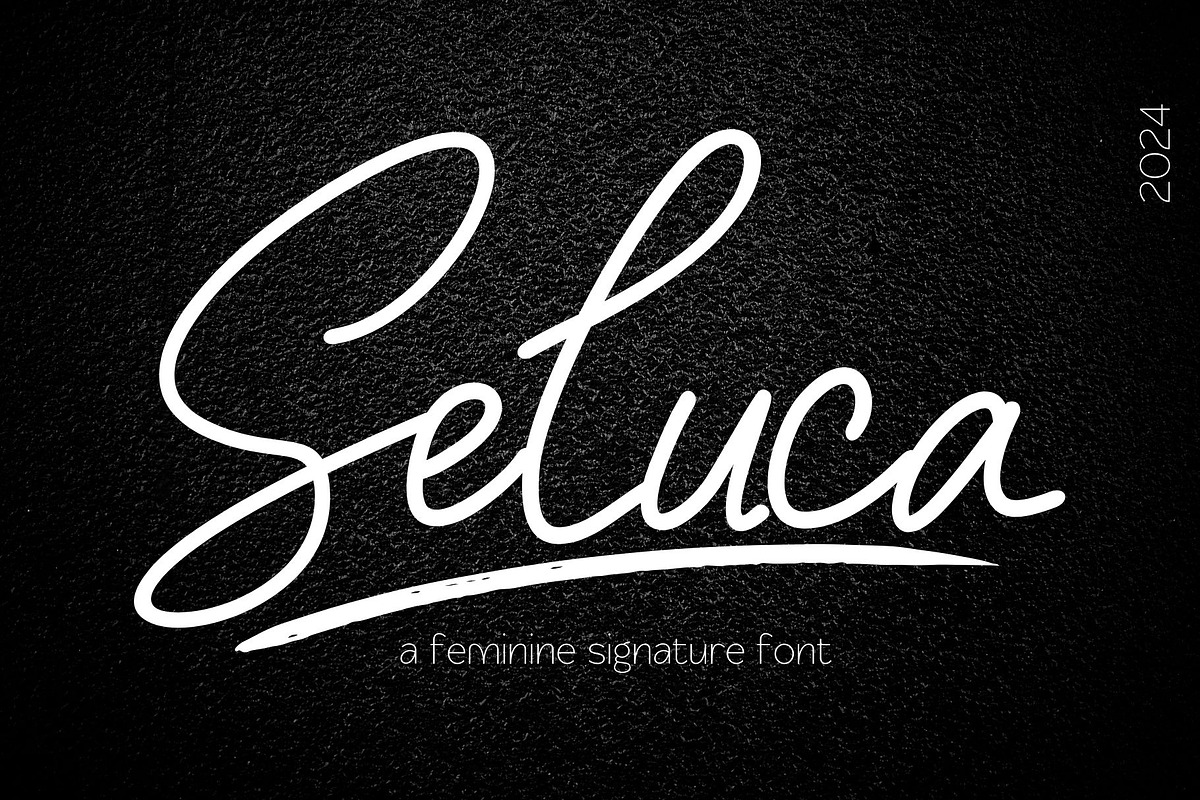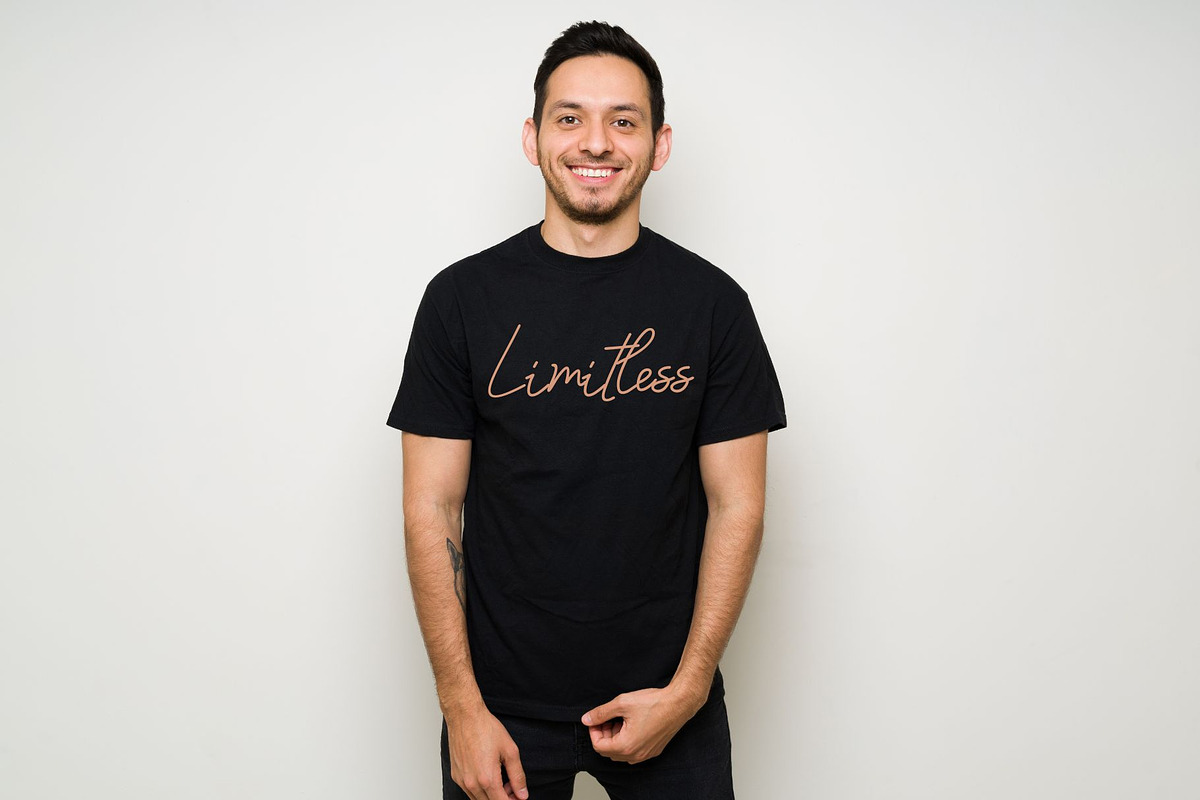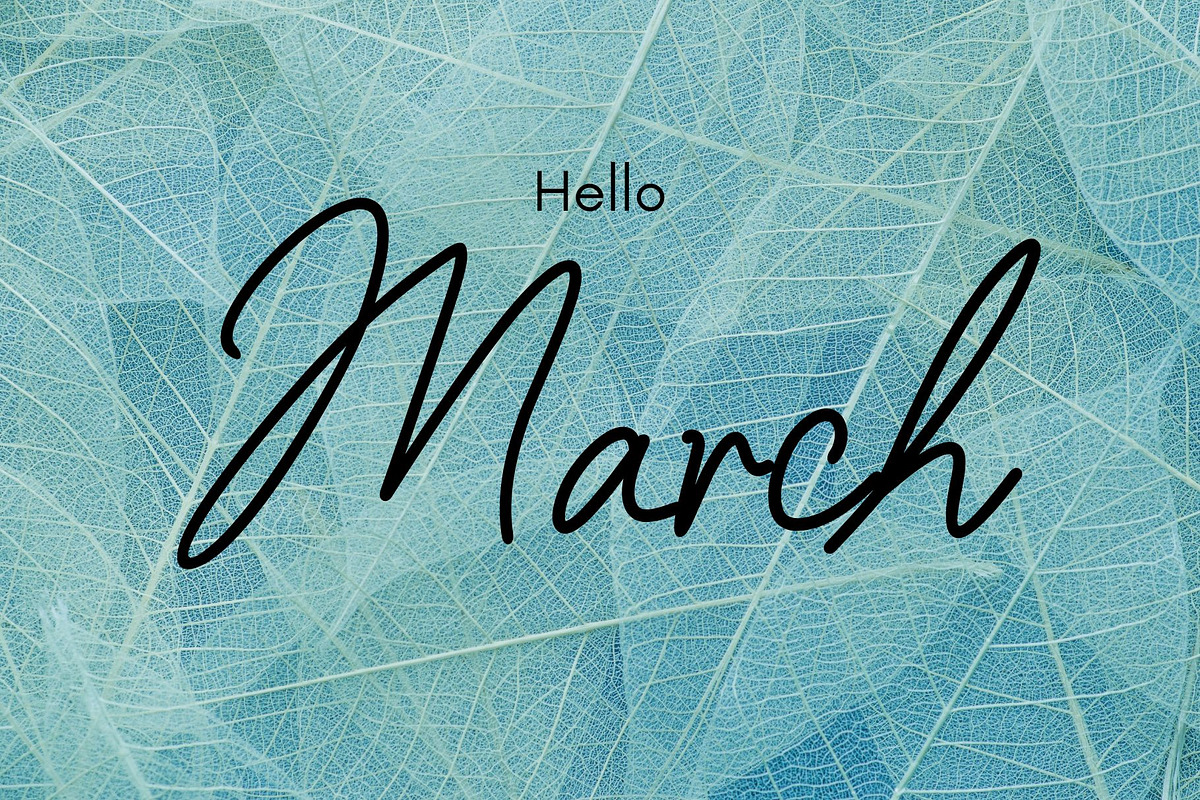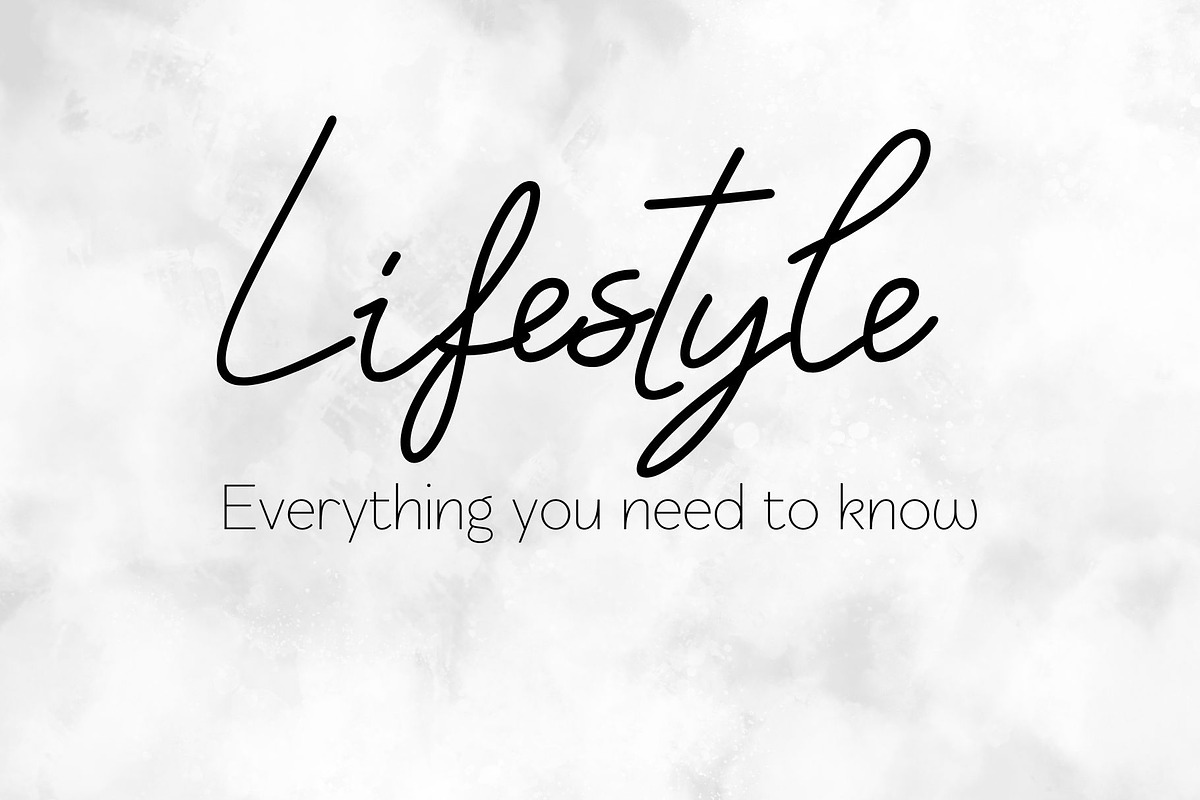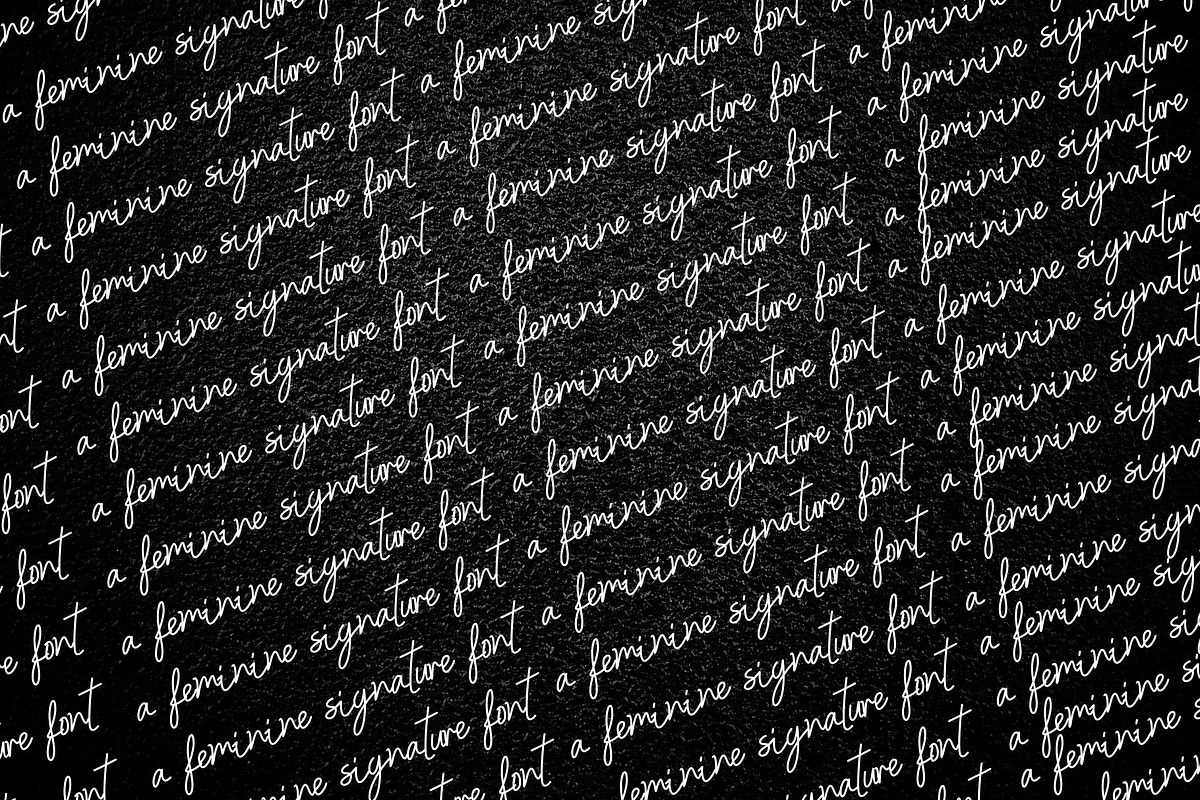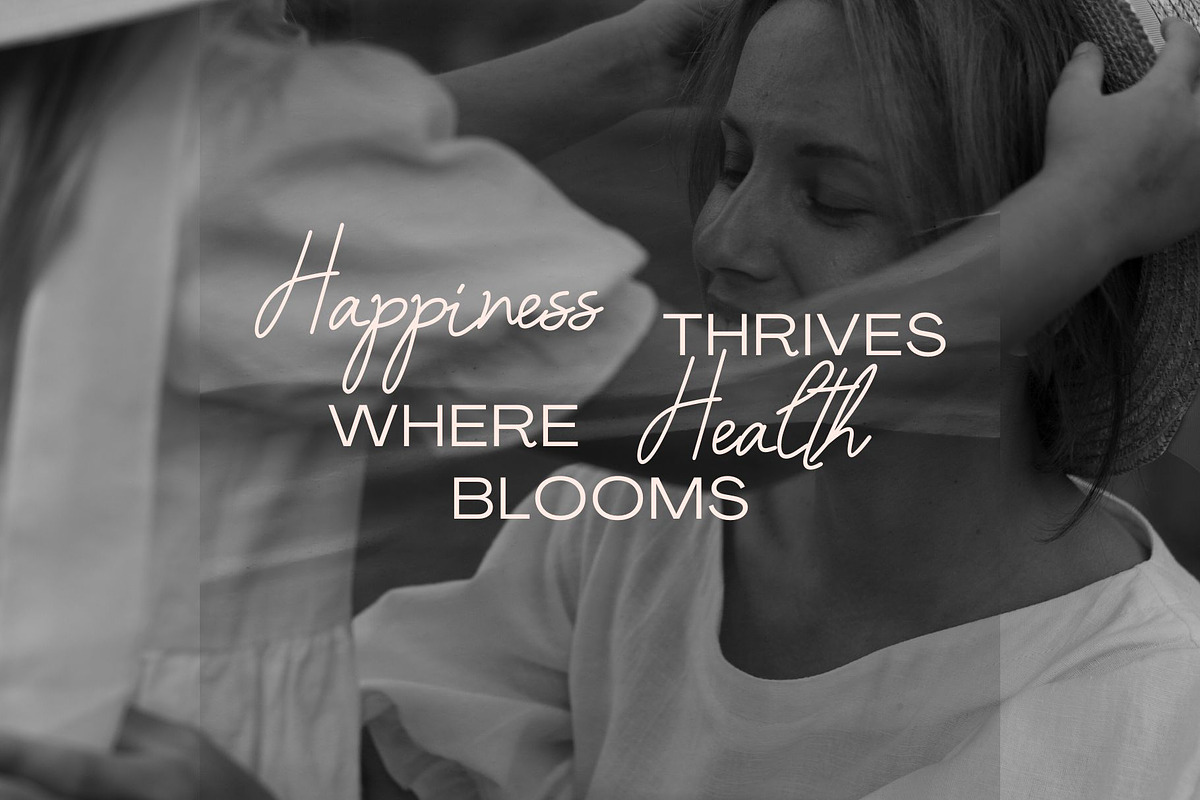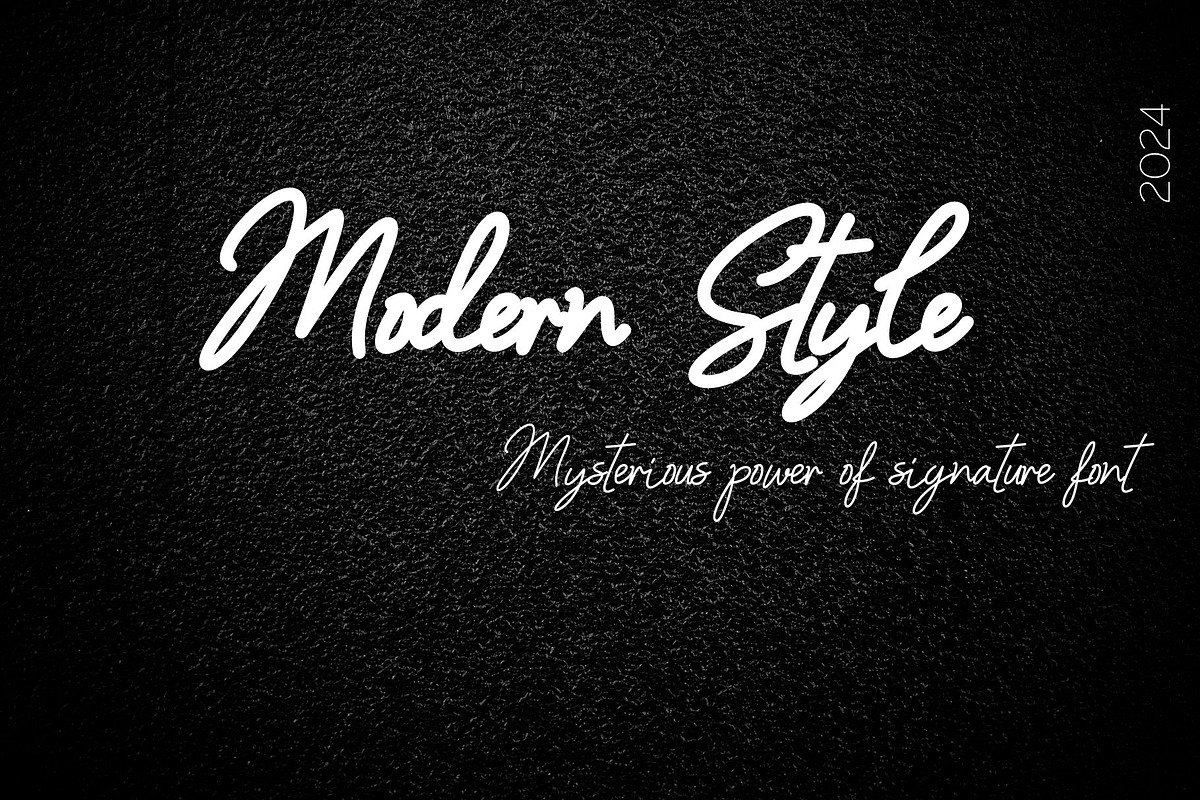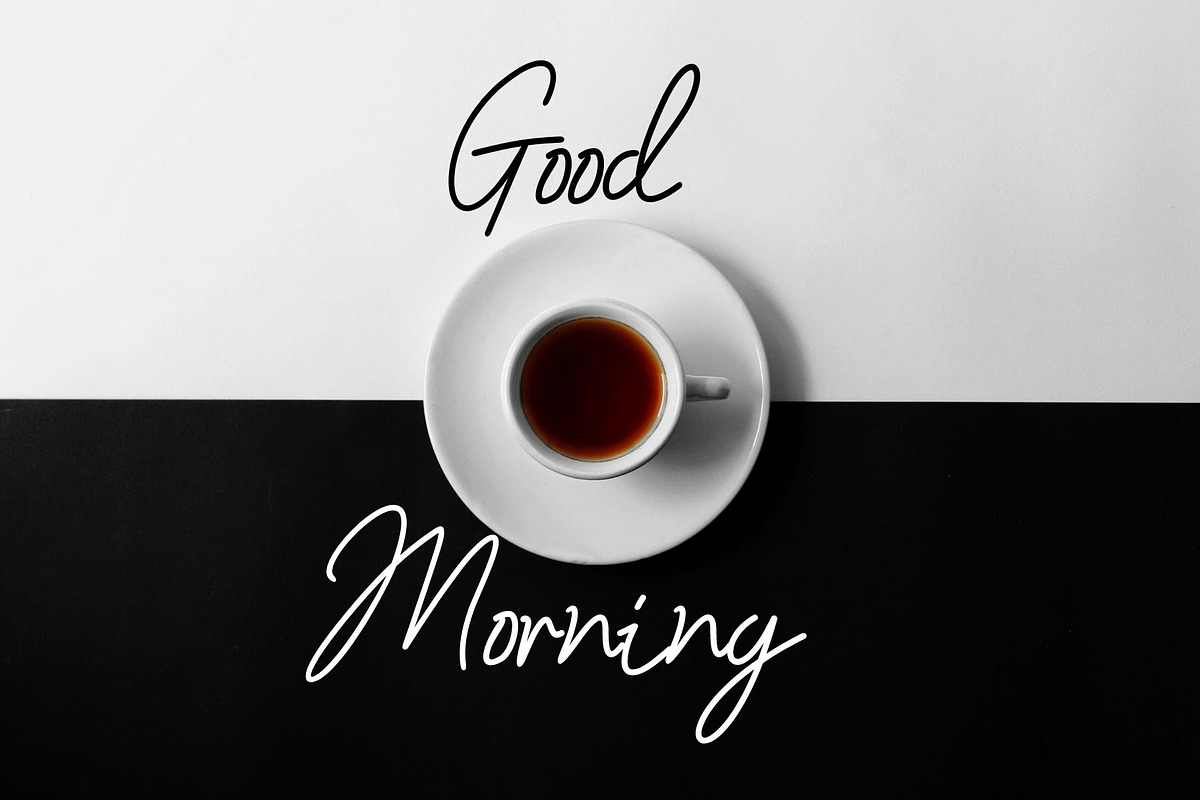
Seluca signature feminine font
Seluca is an organic handwritten feminine font that is suitable for branding, signature, wedding invitation, promotion, product packaging, and other needs. This font is modern, simple, but still authentic. You will get full set of lowercase and uppercase letters, numerals and punctuation, multilingual symbols, lowercase beginning and ending swashes, ligatures and extra swashes.
Seluca signature feminine font by Aditastudios fits naturally into Branding, posters, packaging, typography.